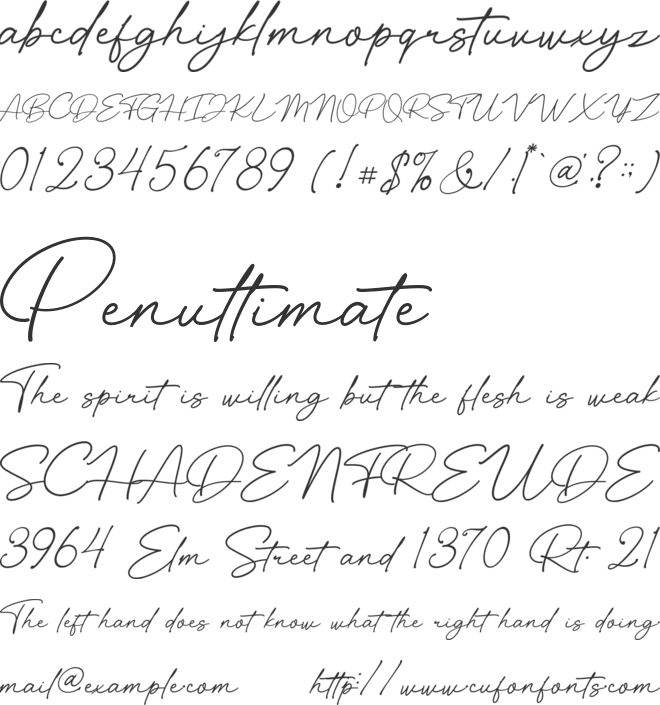
Bolivia Signature Font
Introducing the Bolivia Signature Font, crafted with natural precision. It's perfect for branding, websites, and editorial designs. Please note that my fonts are available for free use only in personal projects and non-profit endeavors.